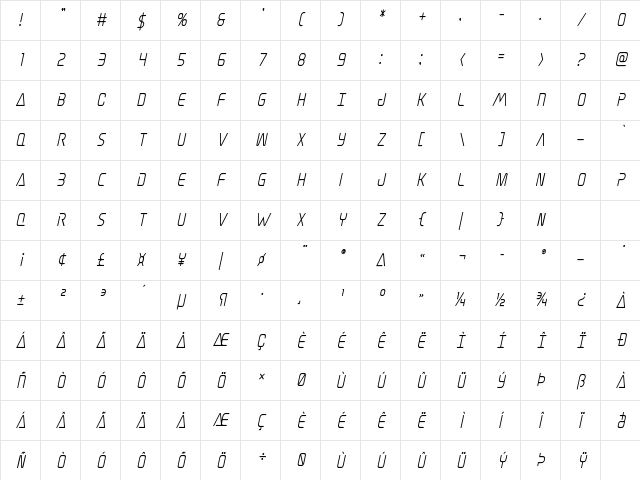
Elite Danger Semi-Bold Condensed Italic Free Font
Elite Danger Semi-Bold Condensed Italic Semi-Bold Condensed Italic
Style: Semi-Bold Condensed Italic
Design Context for Elite Danger Semi-Bold Condensed Italic
Elite Danger Semi-Bold Condensed Italic is a composed and adaptable typeface that performs quietly and consistently across a wide range of design contexts. The slanted form adds forward momentum and visual energy. Its bold stroke weight gives it real presence on the page. Its narrow stance lets it pack a punch even in space-constrained designs.